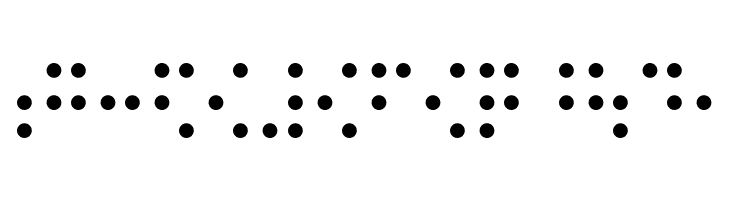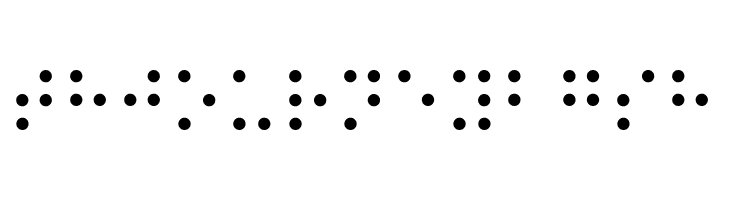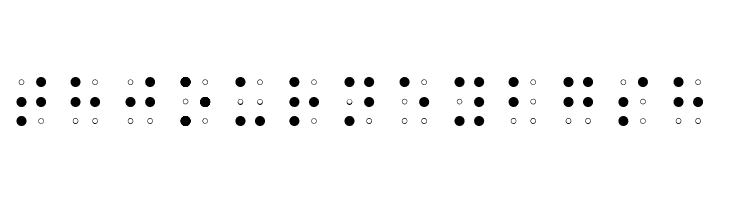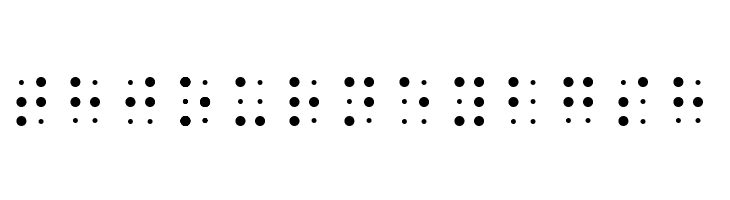
An elegant script font with flowing, cursive strokes and subtle flourishes.
( Hazel Abbiati - diamondidiocy.tumblr.com )
A tactile Braille font designed for accessibility and inclusivity.
( Hazel Abbiati - diamondidiocy.tumblr.com )
A tactile Braille font designed for accessibility.
( Vladimir Nikolic - www.coroflot.com/vladimirnikolic )
A bold representation of Braille, a tactile writing system for the visually impaired.
( Vladimir Nikolic - www.coroflot.com/vladimirnikolic )
A Braille font representing characters with raised dot patterns for tactile reading.
( Font Environment - www.fontenvironment.com/ )
Tactile dot-based font for Braille literacy.
( Fonts by Roberto Mocci )
A tactile Braille system with raised dot patterns for accessibility.
( Fonts by Malre )
A bold, classic serif font with high contrast and elegant details.
( Fonts by Malre )
A high-contrast serif font with elegant, sharp serifs and a classic style.
A calligraphic, italic script with elegant, sweeping forms.
( Fonts by Clearlight Fonts - Brad Barham )
A bold, hand-drawn font with a playful and irregular style.
( Fonts by Philippe BLONDEL www.philing.net )
A 3D visual representation of Braille characters using raised spherical dots.
( Fonts by Spork Thug Typography - Josh Wilhelm - www.lifewithouttaffy.com/taffy/blog )
A decorative font featuring hand tools as characters, perfect for DIY-themed projects.
( Fonts by Steve Ferrera )
A dingbat font with sci-fi vehicle illustrations and a bold display title.
( Fonts by www.alphabetype.it )
A decorative, sci-fi themed display font with character illustrations and bold sans-serif text.
( Fonts by Klaus Johansen - www.listemageren.dK )
A decorative border font with playful cat illustrations and rectangular frames.
Cartoon couples form each character in a playful, hand-drawn style.
A playful, eye-themed font with a whimsical and animated style.
Cartoonish, narrative-driven display font with detailed character scenes.
A bold pictogram dingbat font featuring diverse icons and symbols.
A playful, illustrative font featuring dancing people as each character.
A playful, cartoon-style font with animated characters integrated into each letter.
Bold geometric numerals paired with clear, functional media and utility icons.
( Fonts by Fizzetica DepokAsiana TypeFoundry - fizzeticatypefoundry.tumblr.com )
A mix of bold, modern, and decorative logotype fonts for branding.
( Fonts by Jeff Levine. FREEWARE )
A decorative font with letters paired with a woman's silhouette.